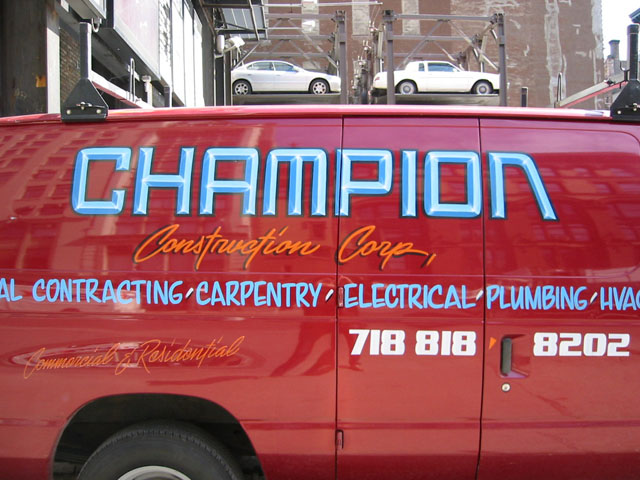
We asked different creatives to give a contribution about:
Car lettering as a visual chance, in and on a personal public space.
Peter Bünnagel, designer Scrollan, Berlin, Germany
Prof. Czyk (aka Alexander Branczyk) Xplicit, Berlin, Germany
Piet Schreuders, art director eg. Poezenkrant, Amsterdam, NL
Christian Schwartz, type designer Orange Italic, New York, USA
Sasker Scheerder, artist his website, Rotterdam, NL
Michael Göke, 3d designer and rockstar Cryptic flowers, Essen, Germany
Eike, designer Subfuse, Berlin, Germany
Henrik Birkvig, designer and head of the D.G.H. · LetterLab, Denmark
DJ Wout, designer, AGI member & DJ FdV, Rijswijk, Den Haag, NL
I love this van because the lettering seems more suited to car racing than construction...